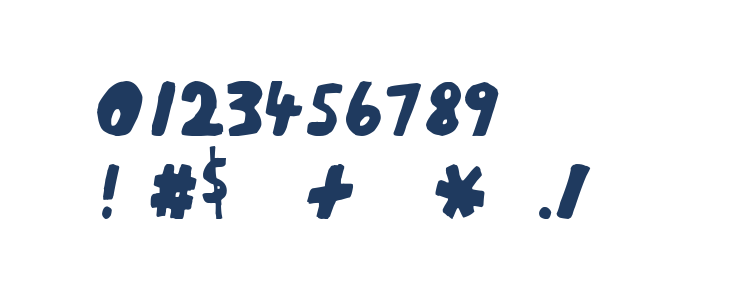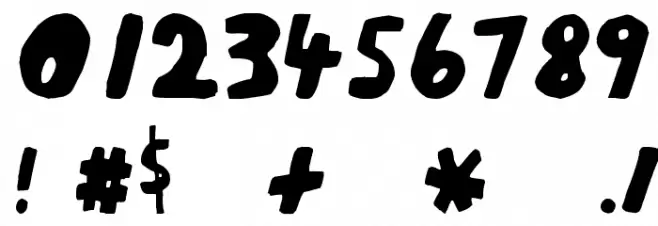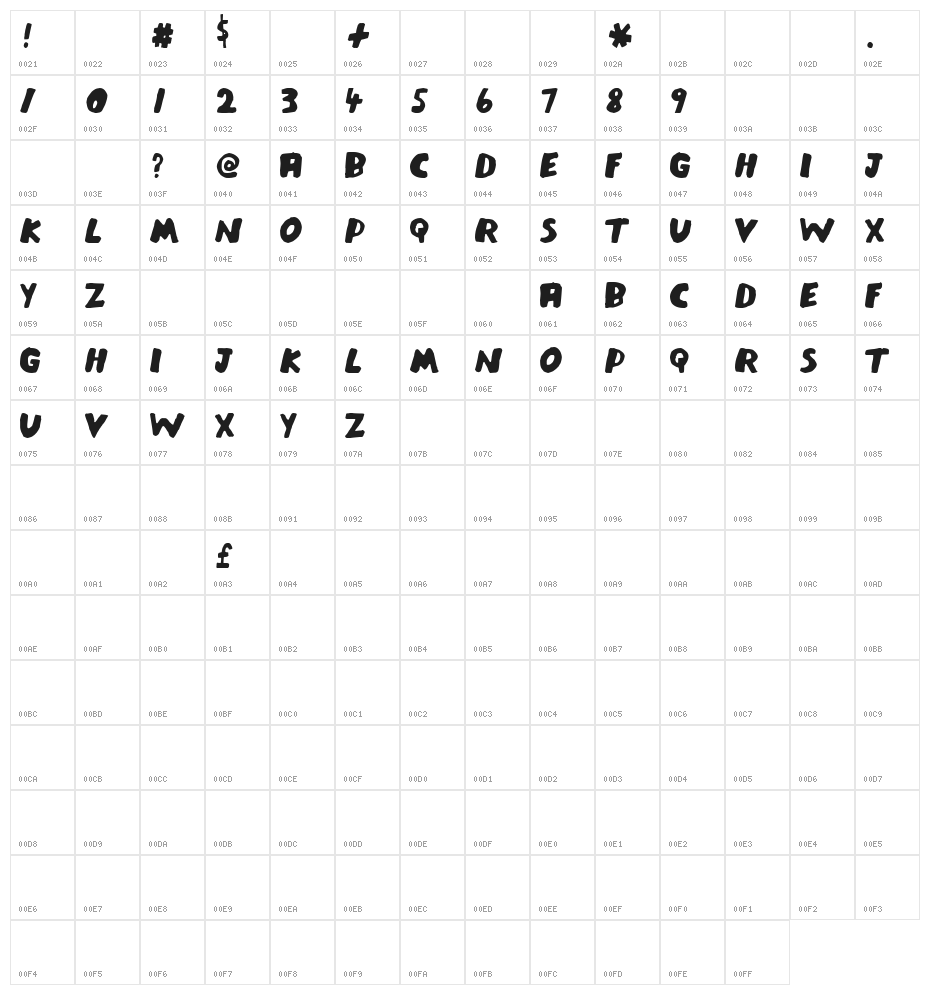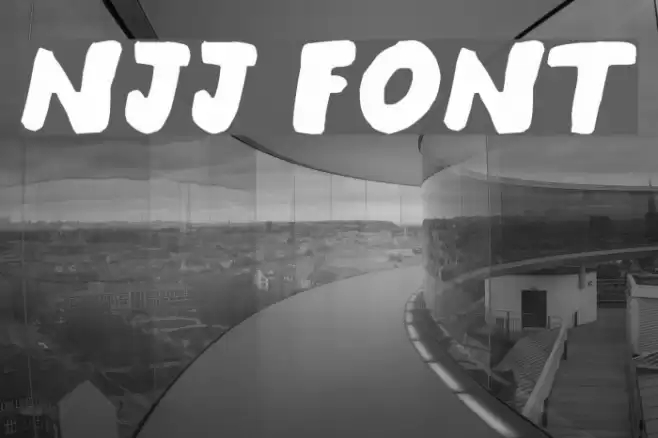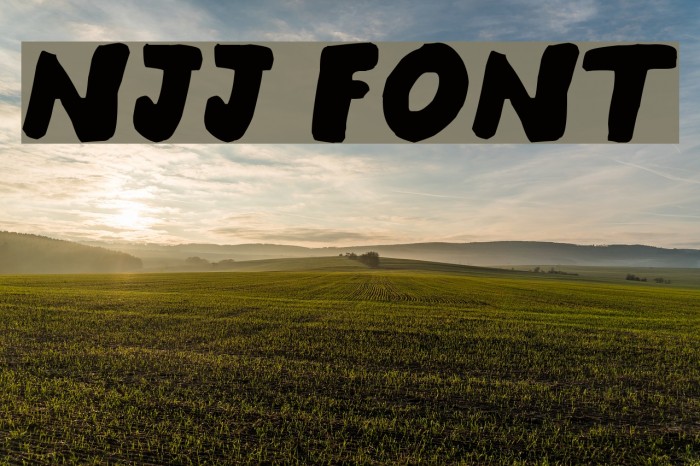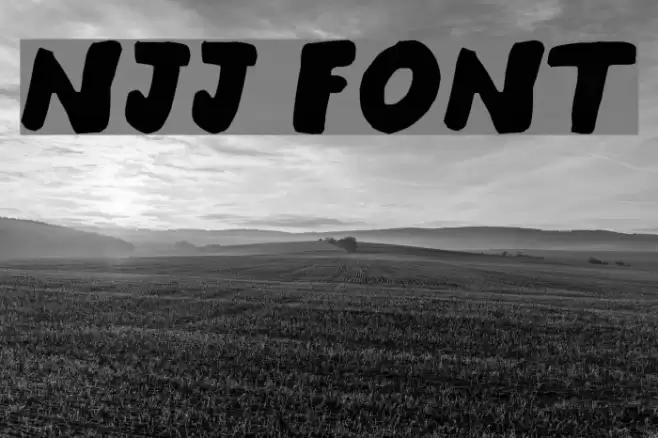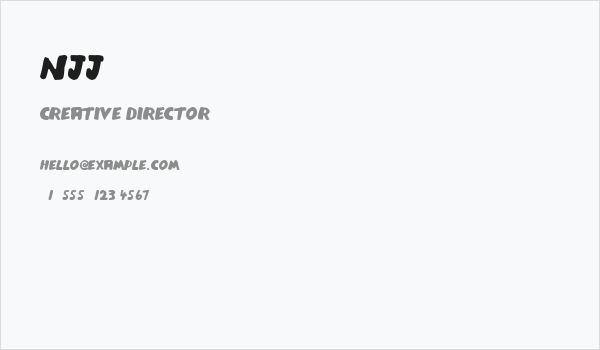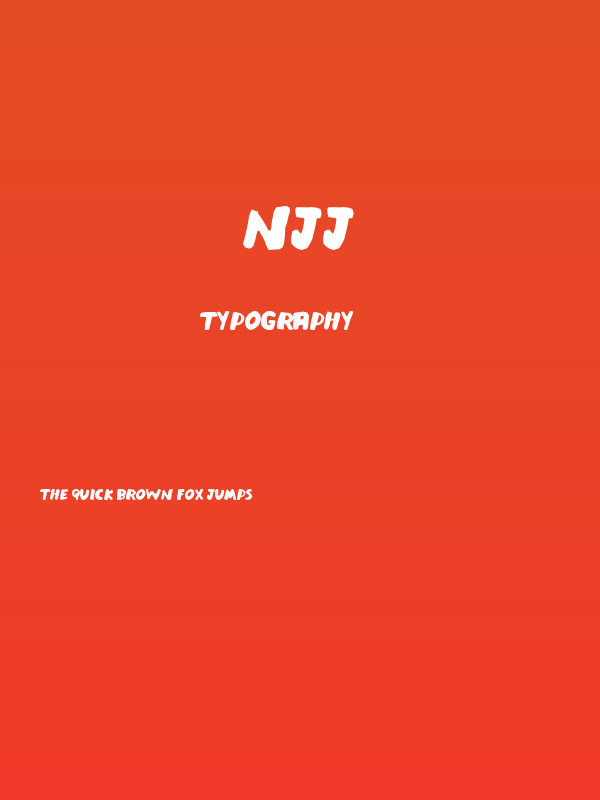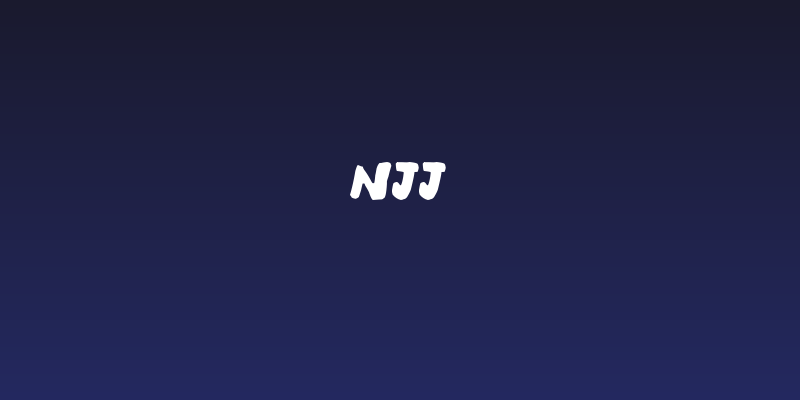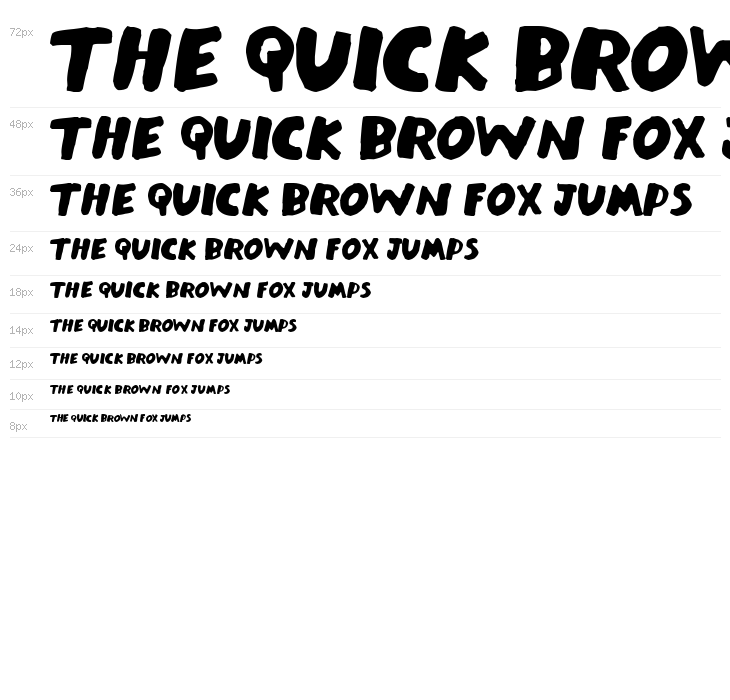
njj Font
njj Description
This font features a bold and playful style with thick, rounded strokes that give it a friendly and approachable appearance. The characters are slightly irregular, adding a hand-drawn feel that enhances its casual and informal nature. The uppercase and lowercase letters maintain a consistent weight, while the numbers and special characters complement the overall design with their bold and quirky shapes. This font's unique style makes it stand out, perfect for projects that require a touch of personality and creativity.
| Overall Style | Playful, Casual |
| Proposed Projects | Ideal for children's books, comic strips, playful branding, and creative posters. |